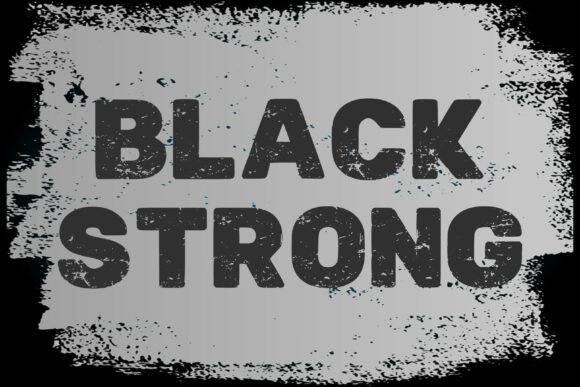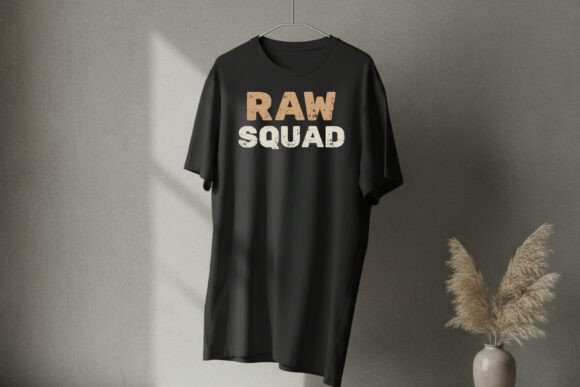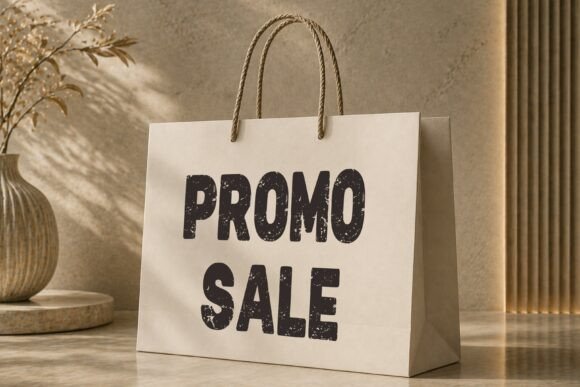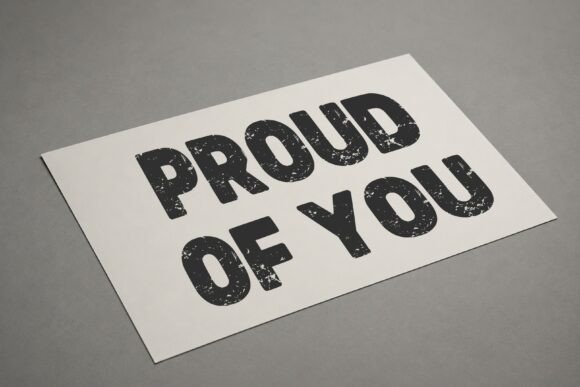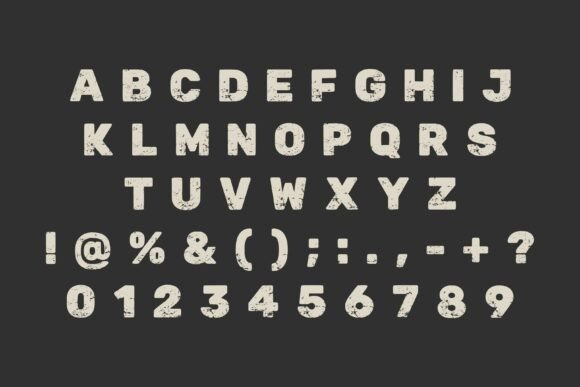
Introduction to Modern Distress Font
As a designer, you’ve probably had that moment when you’re working on a project and the perfect font just isn’t there. You’re staring at your screen, scrolling through endless options, and nothing seems to capture the vibe you’re going for. That’s where the Modern Distress Font comes in – a game-changing design resource that’s about to revolutionize your creative project.
With its bold, grunge-inspired display font and vintage distressed look, the Modern Distress Font is the perfect addition to any design. Whether you’re working on a streetwear brand, a music poster, or a YouTube thumbnail, this font is sure to grab attention and leave a lasting impression. And the best part? It’s available for free download, complete with a transparent background, making it easy to incorporate into your high-quality designs.
Key Features of Modern Distress Font
- Unique blend of distressed and modern design elements, ideal for creative projects that require a touch of elegance and grit.
- Perfect for designers and artists working on creative projects, such as typography-based art, logos, and branding materials.
Honest Review: Modern Distress Font
As a designer, I’ve come across many fonts in my creative journey, but the Modern Distress Font has caught my attention. I was excited to dive in and see what it has to offer.
What works well: ✨ The font is well-designed and offers a high level of flexibility. The Modern Distress Font comes in a variety of styles, making it perfect for various creative projects. The font’s distressed look gives it a unique and edgy feel that can be used in a range of applications, from posters to logos.
However, there are some limitations: ⚠️ The font may not be suitable for all types of projects, especially those requiring a more formal or traditional look. Additionally, the font’s distressed look may not be to everyone’s taste.
Overall impression: I’m impressed with the Modern Distress Font’s quality and versatility. It’s a great addition to any designer’s toolkit, and I’d definitely recommend it for creative projects that require a unique and edgy look.
- High quality and versatile design
- Perfect for creative projects requiring a unique look
To get the most out of the Modern Distress Font, experiment with different font sizes, colors, and layering techniques. Common use cases include adding a distressed touch to branding materials, creating a vintage look for advertisements, and enhancing the aesthetic of digital art projects.